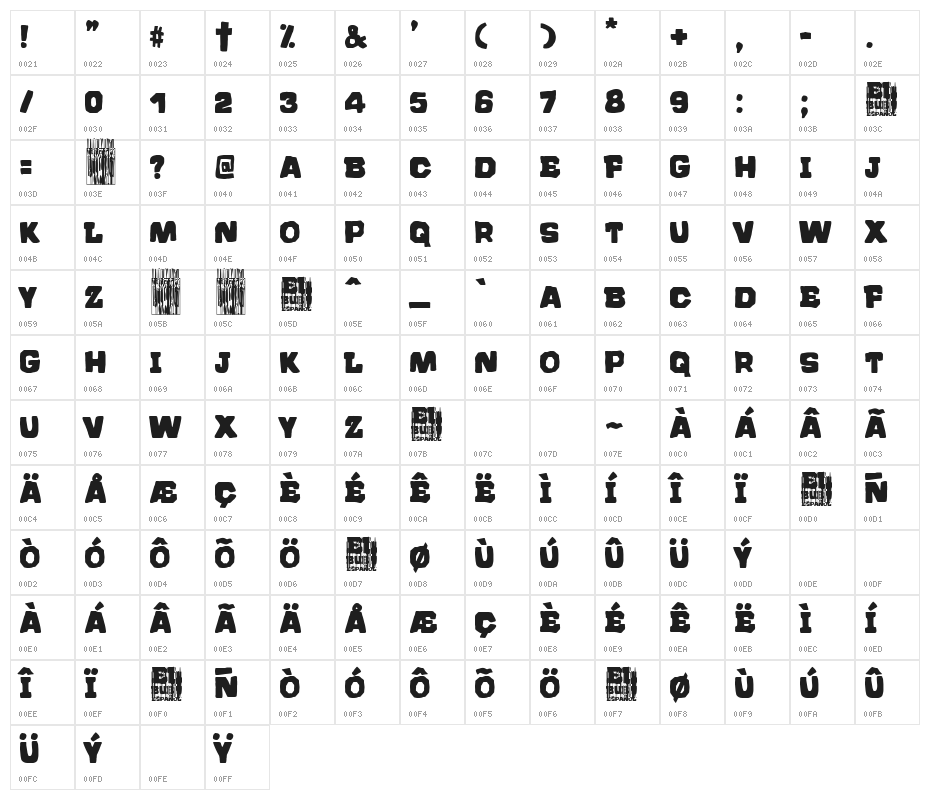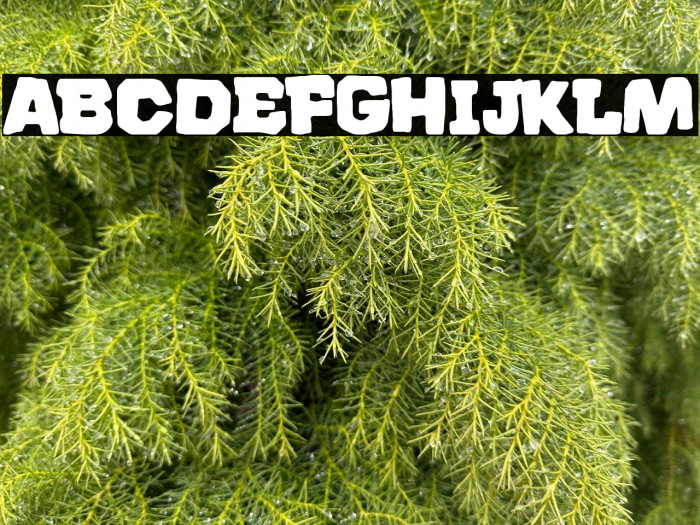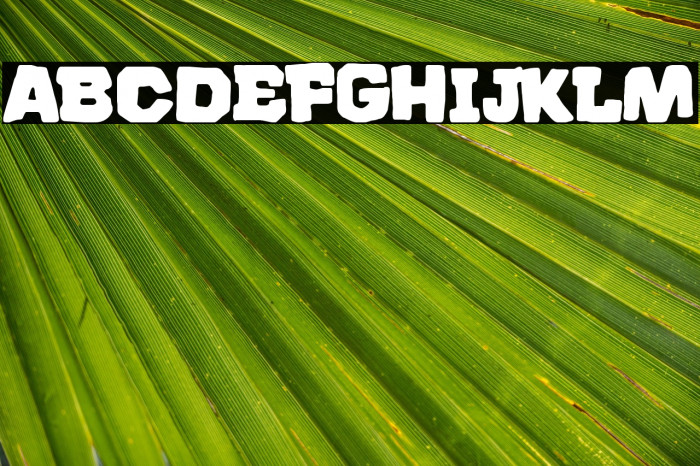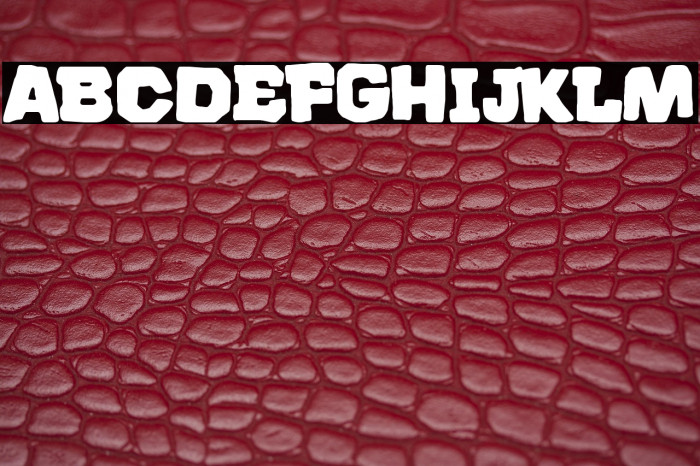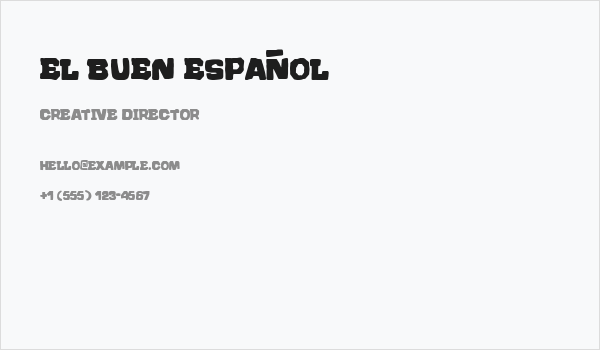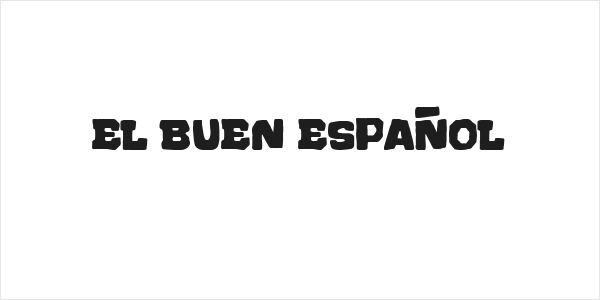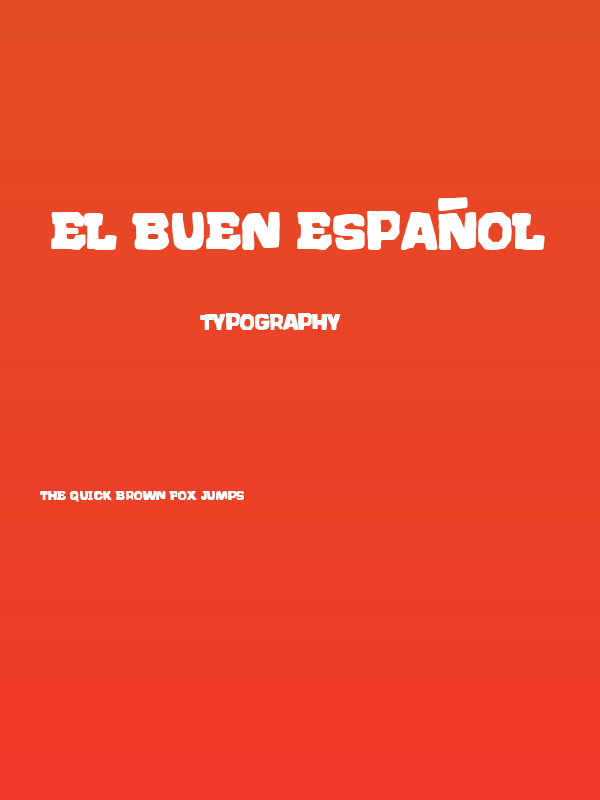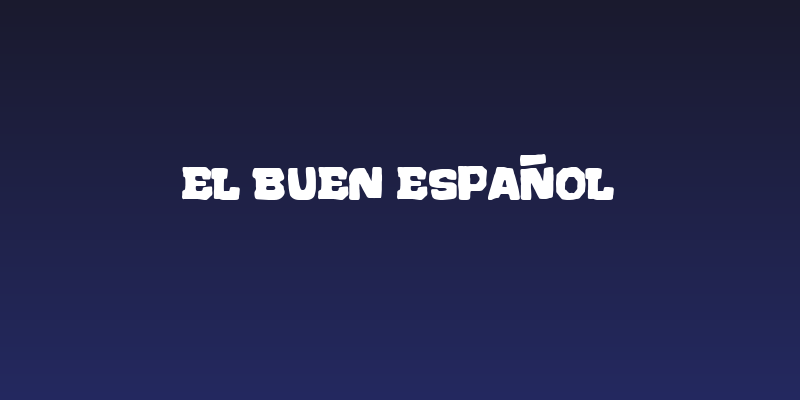
El Buen Español Font
El Buen Español Description
This font features bold, heavy lettering with a playful and slightly irregular style. The characters have a hand-drawn appearance, with uneven edges and a chunky, robust form. The uppercase and lowercase letters maintain a consistent weight, contributing to a cohesive look. Numbers and special characters follow the same design principles, ensuring uniformity across all glyphs. The font's thick strokes and unique character shapes make it stand out, offering a distinctive and eye-catching aesthetic.
| Overall Style | Playful, Hand-drawn |
| Use Case | Logos, Posters, Headlines |
| Proposed Projects | Ideal for children's books, comic strips, playful branding, and posters. |